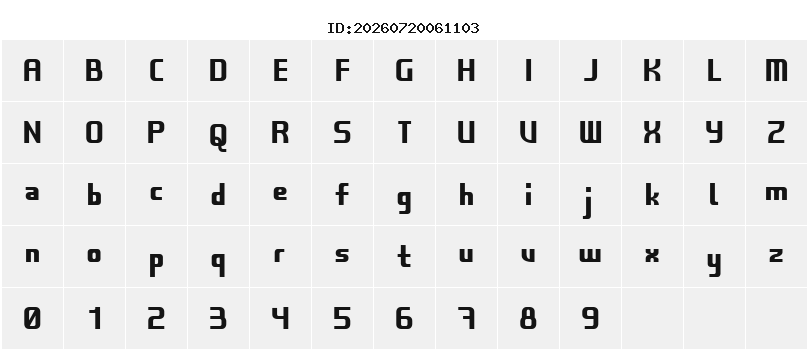
ERKN Preview
• Font Name: ERKN
• Font ID: Tzu-yuanYin: ERKN: 2013
• Full Font Name: ERKN
• PostScript Name: ERKN
• Designer: Tzu-yuan Yin
• Manufacturer: Tzu-yuan Yin
About ERKN.ttf
ERKN.ttf is a modern, elegant sans-serif font designed for ultimate readability and visual harmony. Perfect for branding, headlines, web design, and print materials.